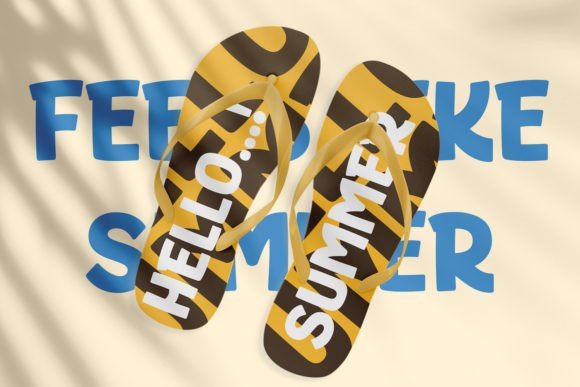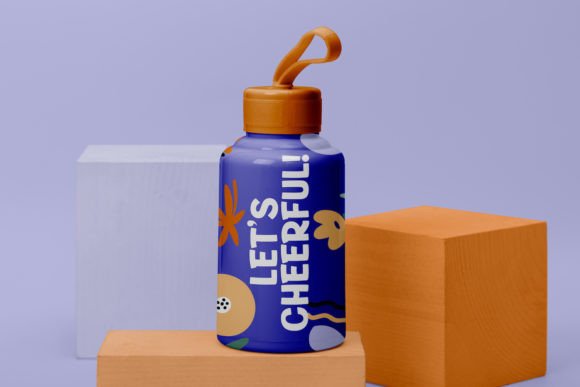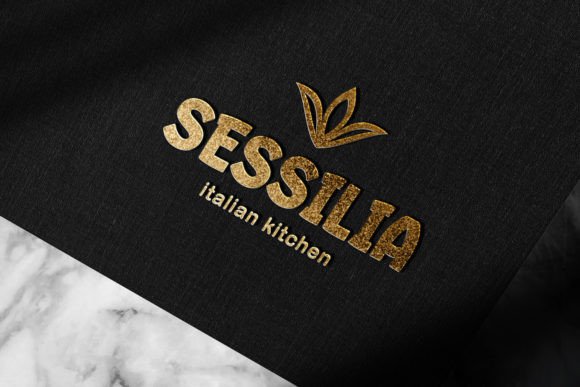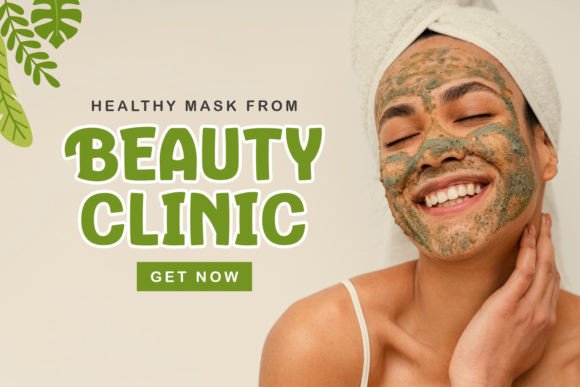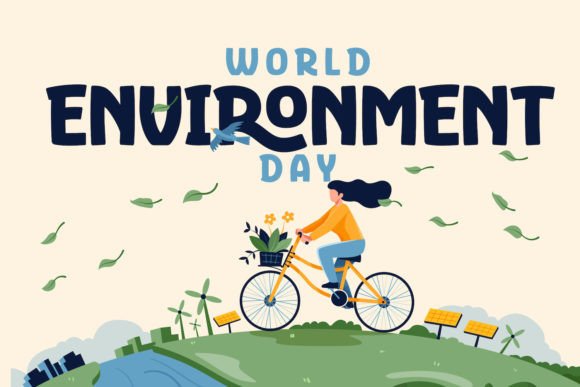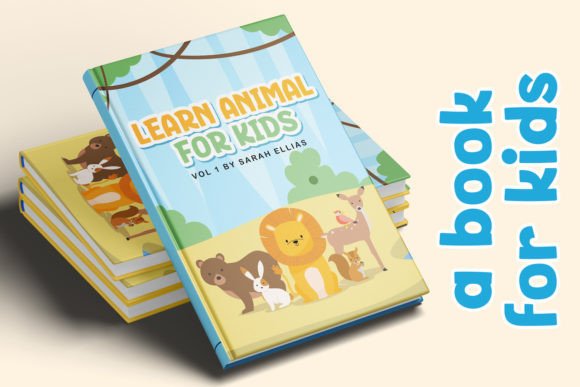
Introduction to Kenarose Font
Do you remember that moment when you stumbled upon the perfect design element for your creative project? The excitement, the thrill, and the rush of creativity that follows? For designers, finding the right font can make all the difference. That’s exactly what the Kenarose Font offers – a high-quality, playful display font that’s perfect for bringing your ideas to life.
Whether you’re working on a children’s project, a school assignment, or a fun design concept, the Kenarose Font is an excellent choice. Its fresh and vibrant design makes it a valuable resource for any designer looking to add a touch of whimsy to their work. And the best part? It’s available for free download, making it a transparent and accessible design resource for everyone.
Get ready to unleash your creativity with the Kenarose Font – a game-changing design element that’s sure to elevate your projects to the next level.
Key Features of Kenarose Font
- High-quality design for creative projects, perfect for graphic designers and artists.
- Transparent background, allowing for seamless integration with any design element.
- Includes 6 styles: Thin, Light, Regular, Medium, Bold, and Black.
- Unique characteristics include elegant lines, refined shapes, and a modern aesthetic.
Honest Review: Kenarose Font
As a designer, I’m always on the lookout for high-quality fonts that can elevate my creative projects. The Kenarose Font caught my eye, and I was excited to give it a try.
What works well: ✨ The Kenarose Font has a beautiful, elegant design that’s perfect for projects where a touch of sophistication is needed. The font is highly customizable, making it easy to adjust the spacing and size to suit your needs. Additionally, the transparent background option is a great feature, allowing you to easily layer the font over other design elements.
Pros:
- Beautiful, elegant design
Cons:
Tips for Getting the Most Out of Kenarose Font
To get the most out of the Kenarose Font, experiment with different font sizes, colors, and styles to create visually appealing designs. You can also use it in combination with other design resources, such as images and graphics, to create a cohesive and high-quality design.
The Kenarose Font is commonly used for creative projects, such as logos, posters, and social media graphics, as well as for presentations, reports, and documents. It’s a great design resource for free download, suitable for both personal and commercial use.